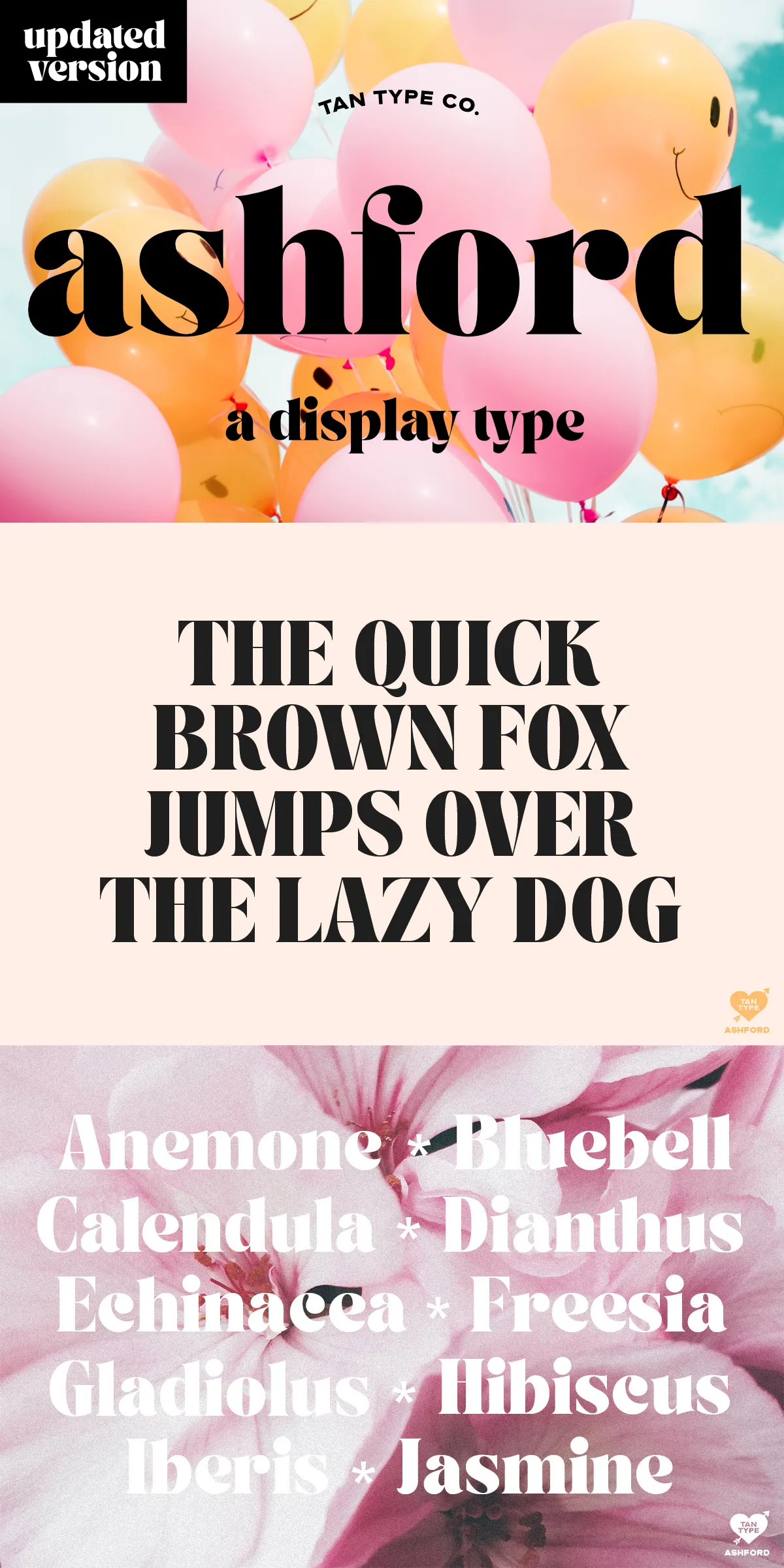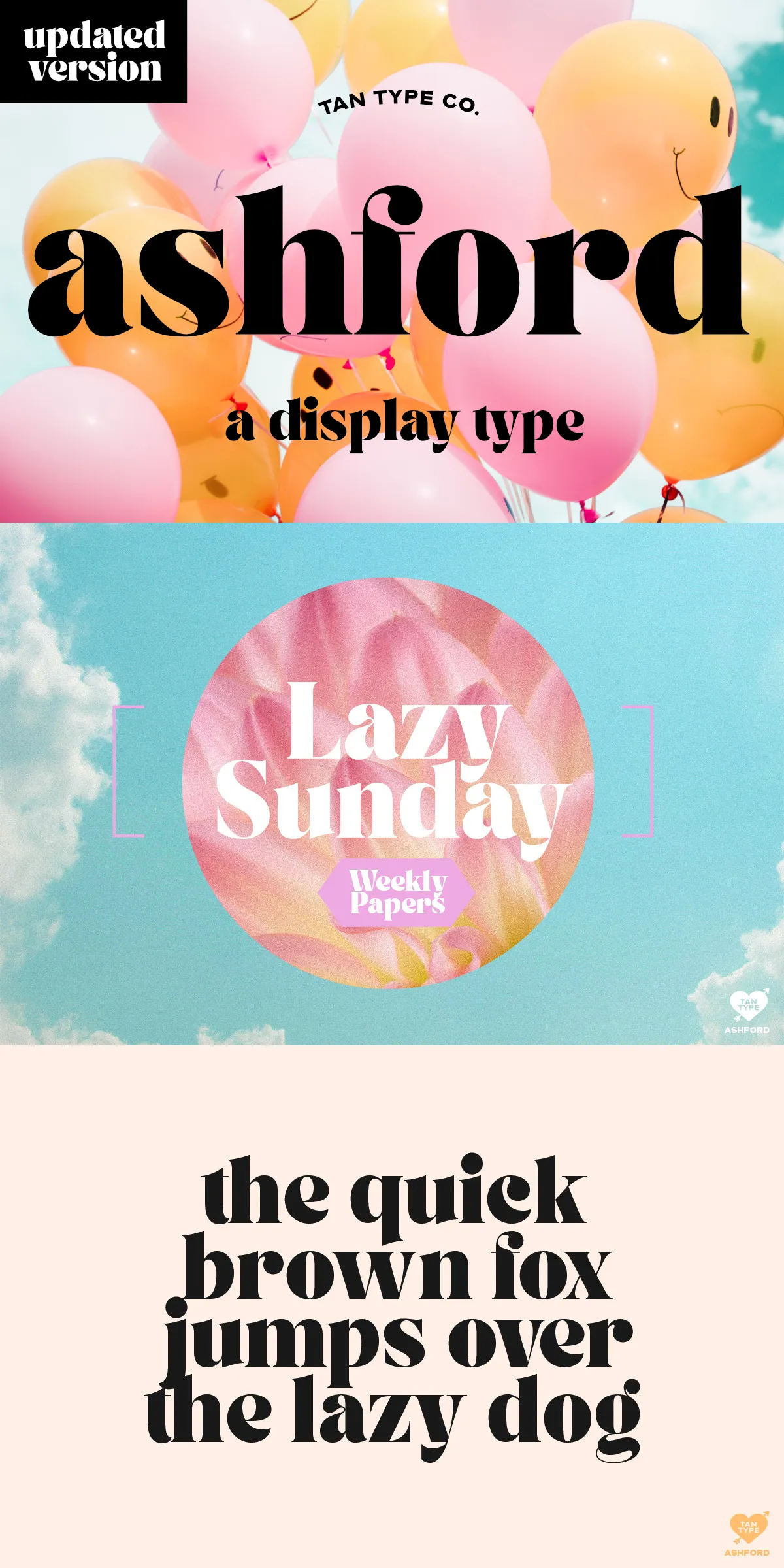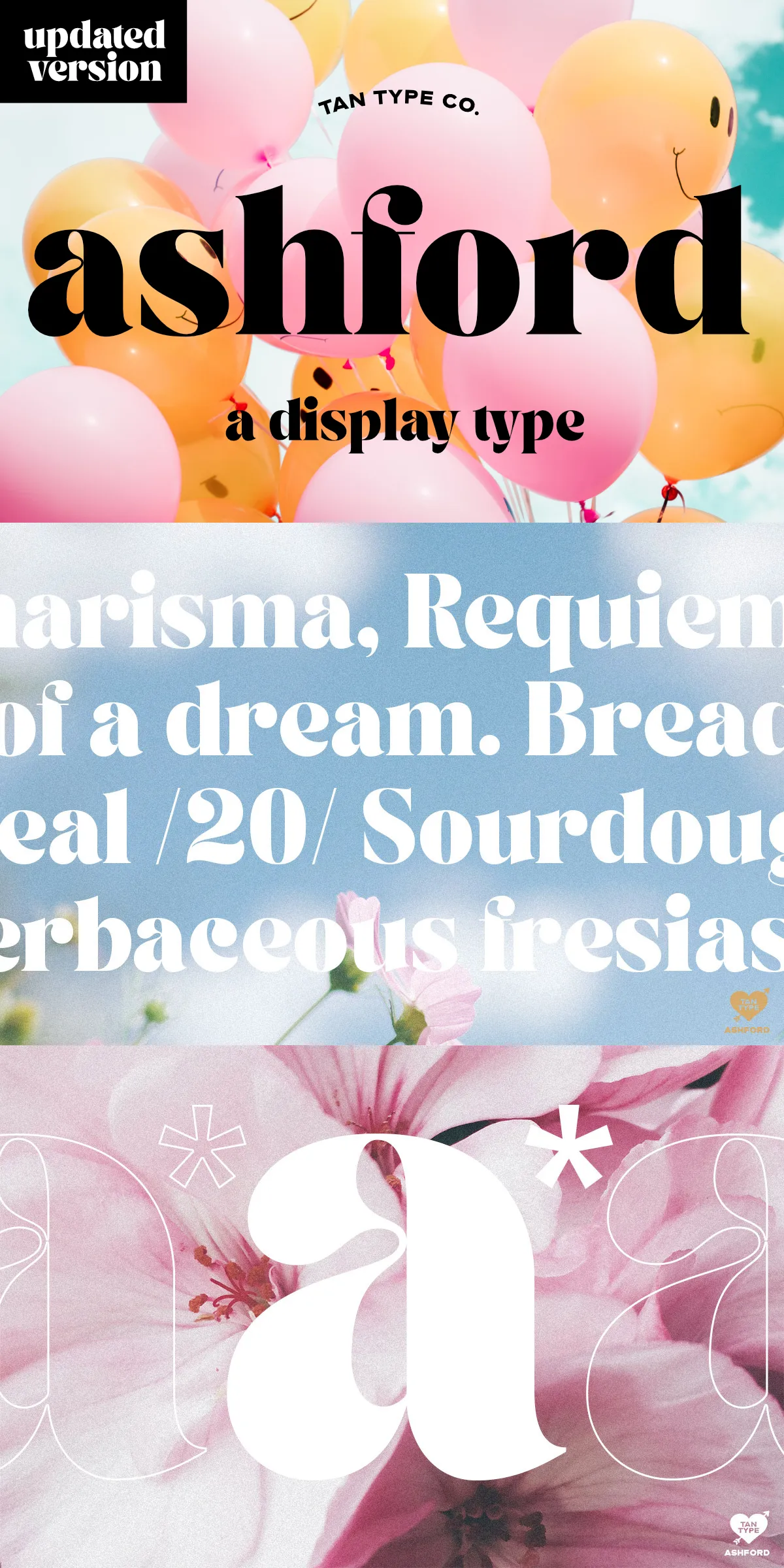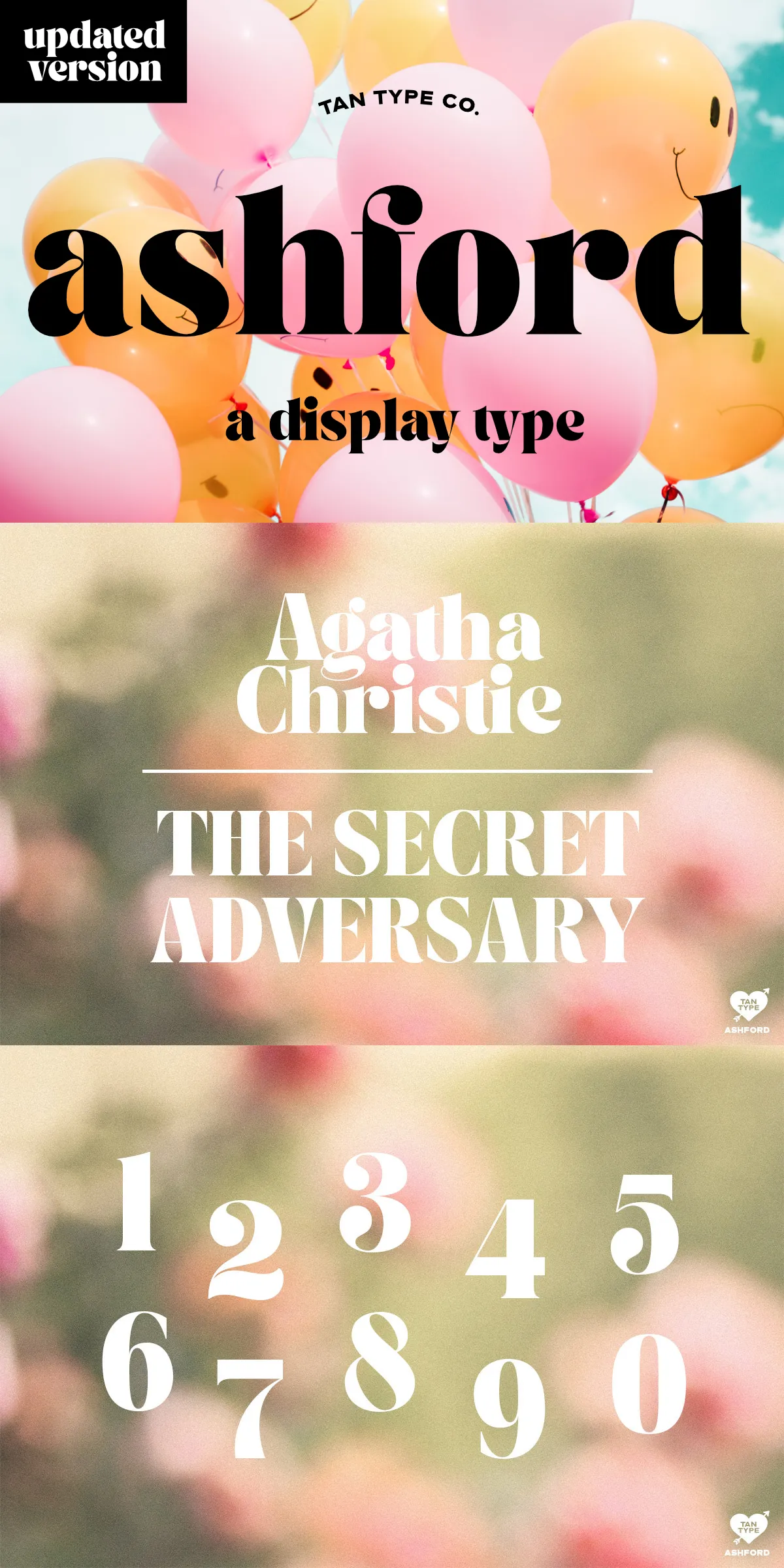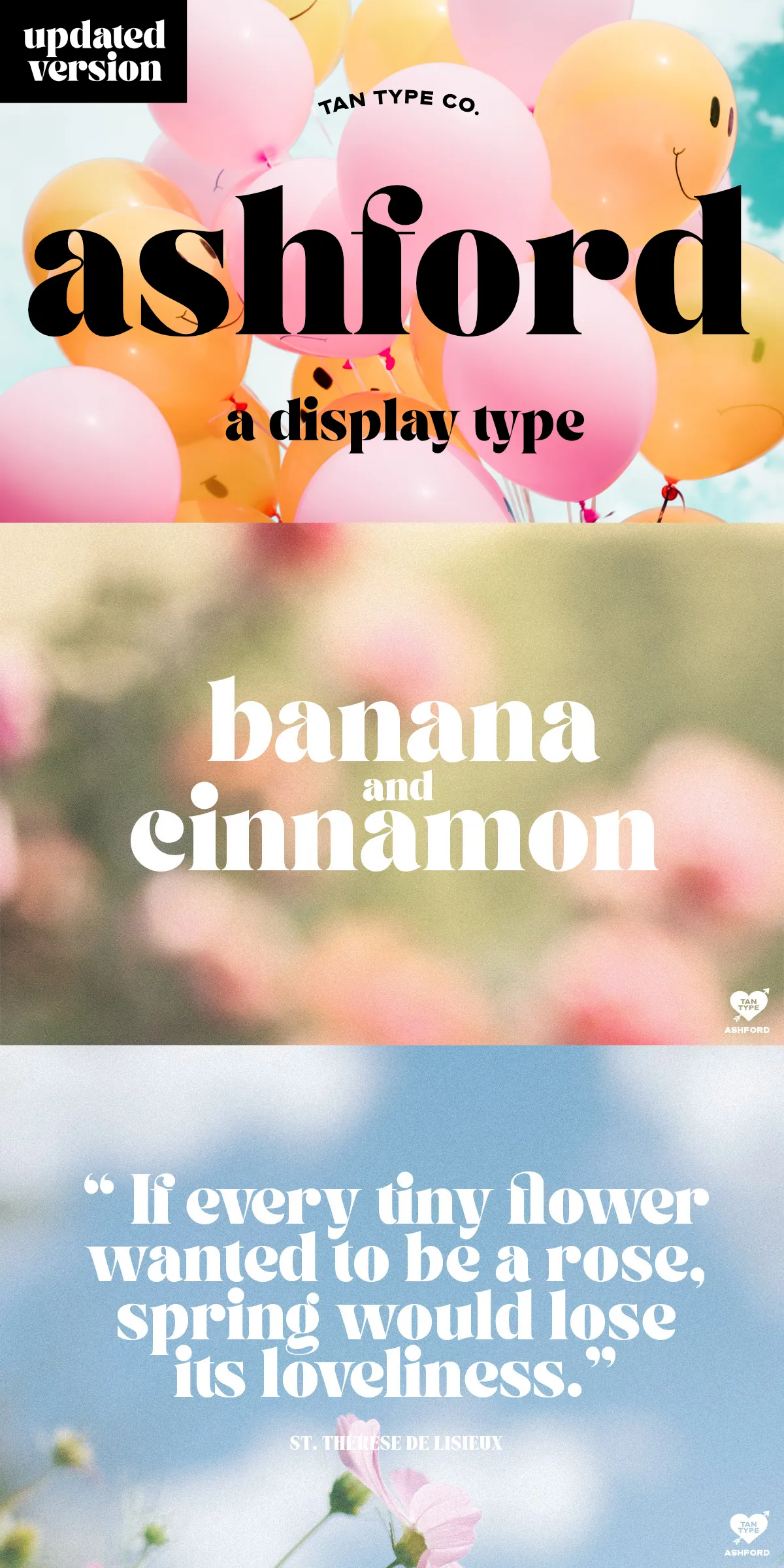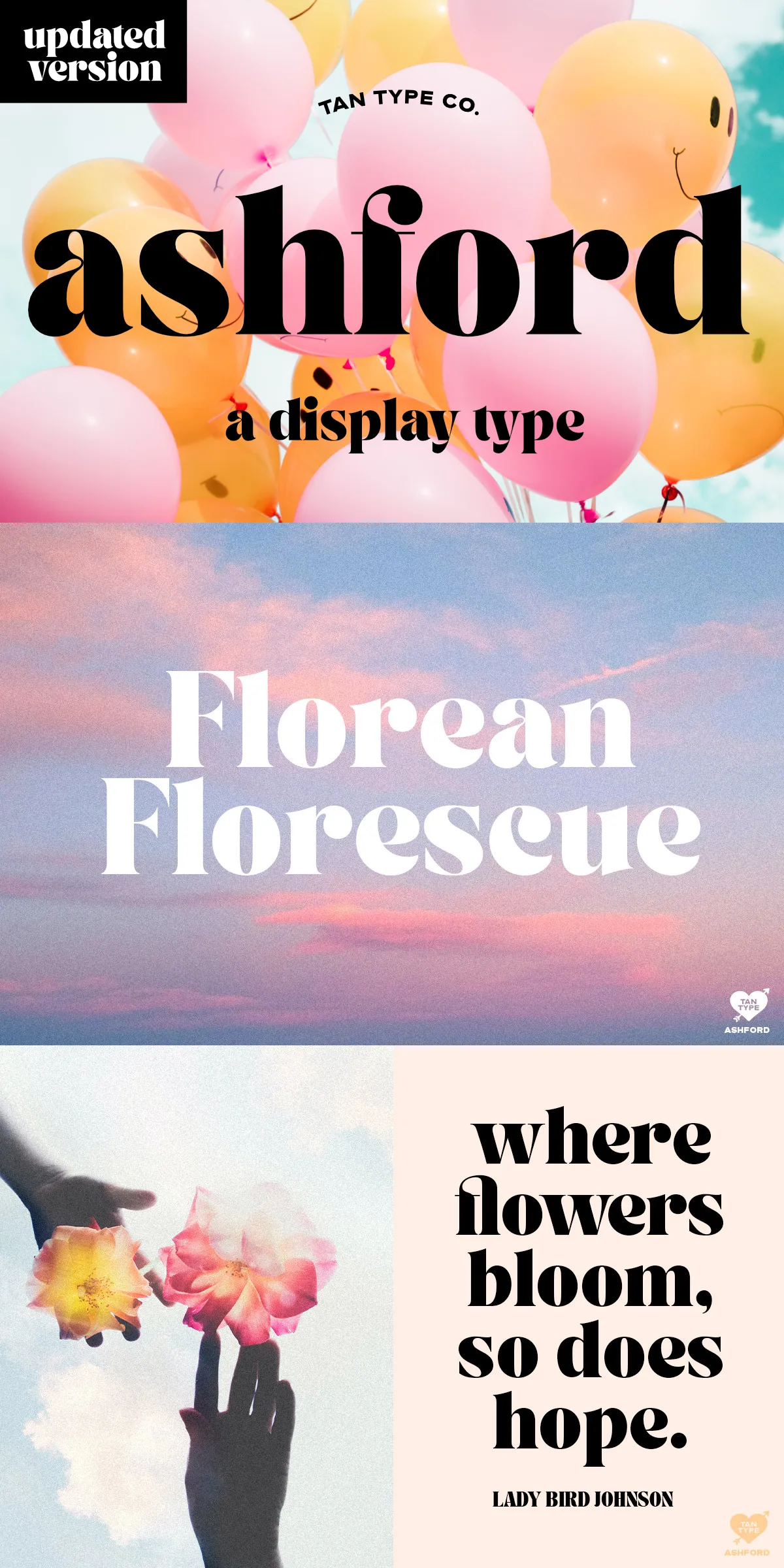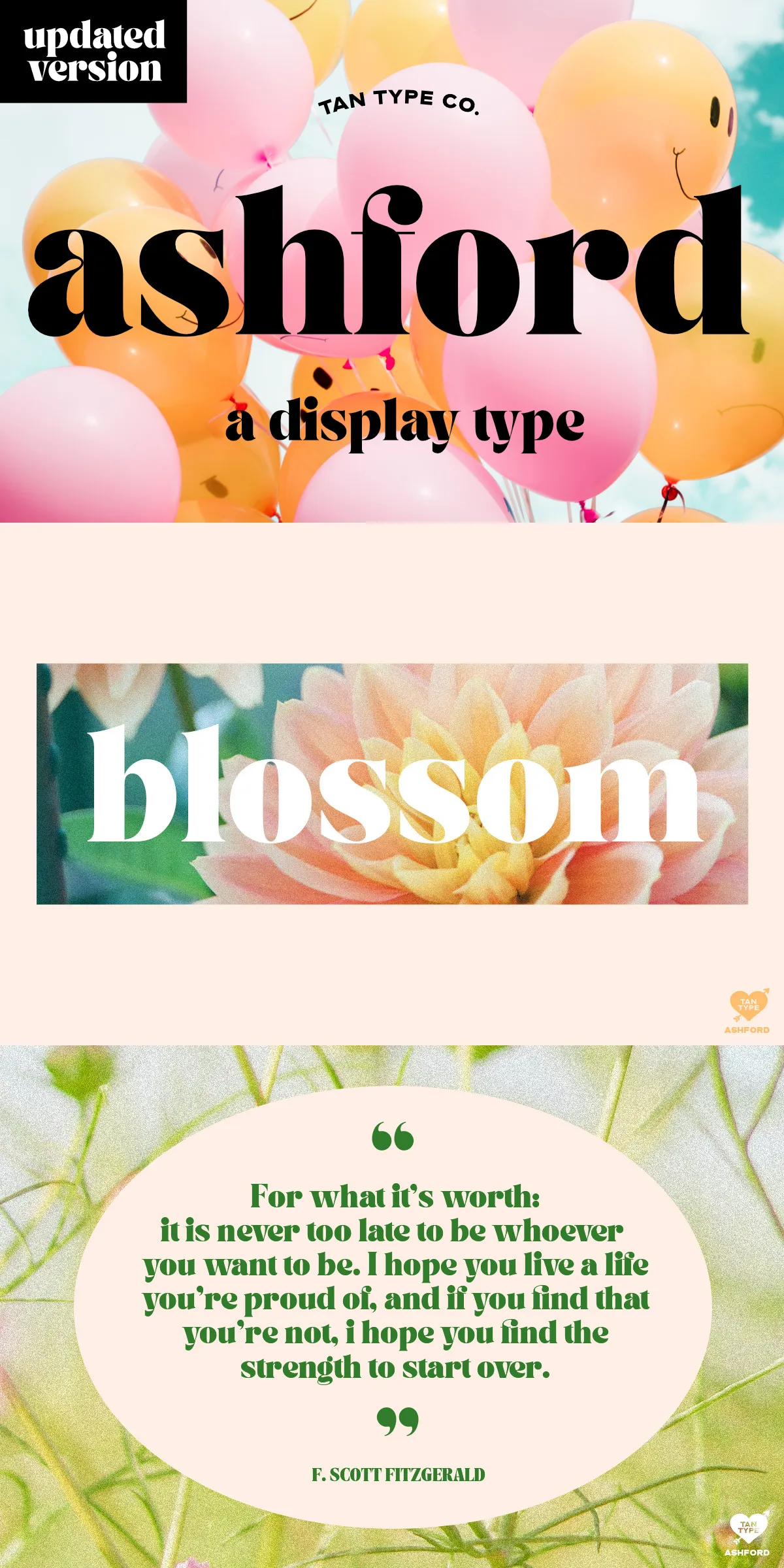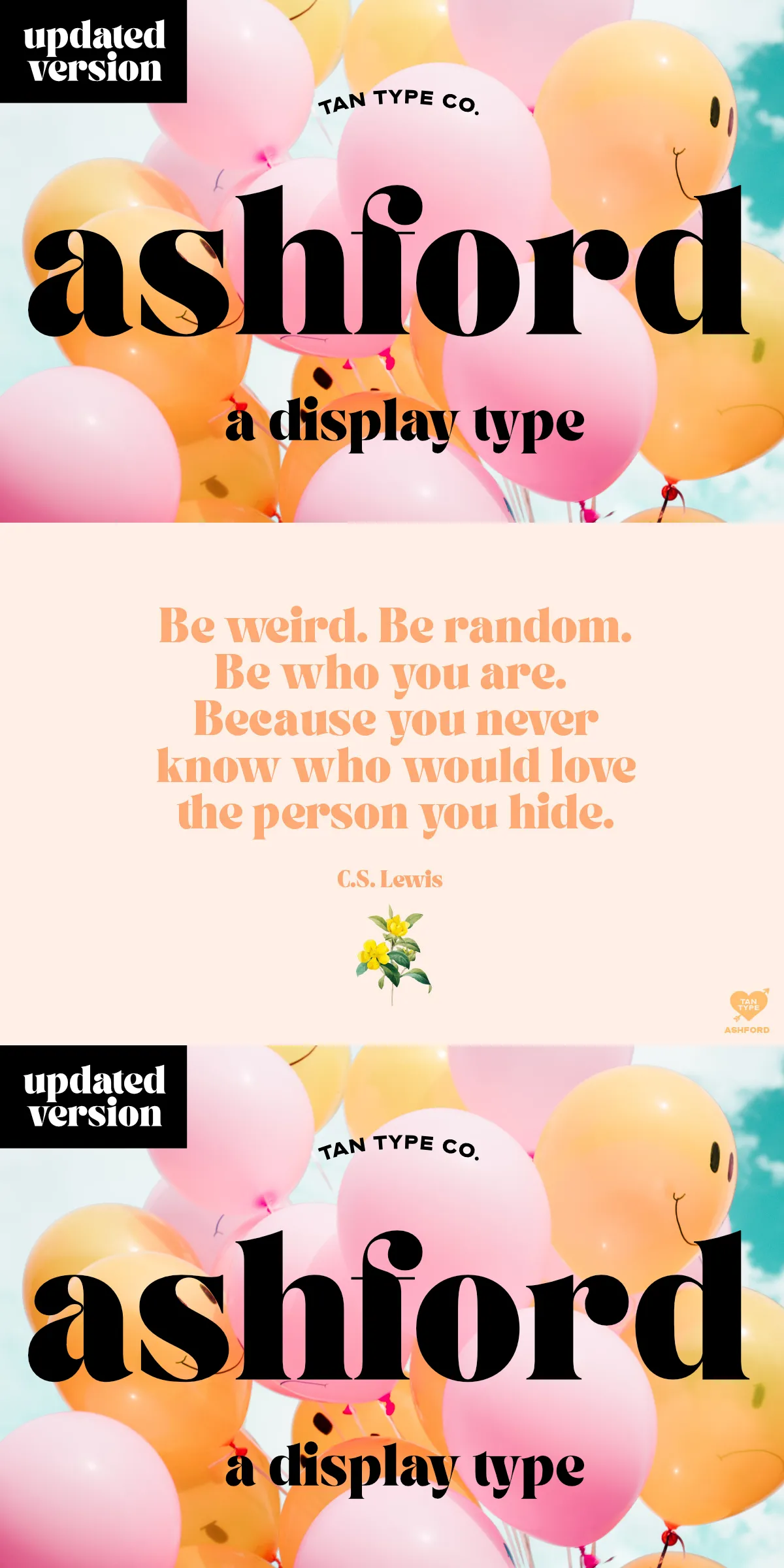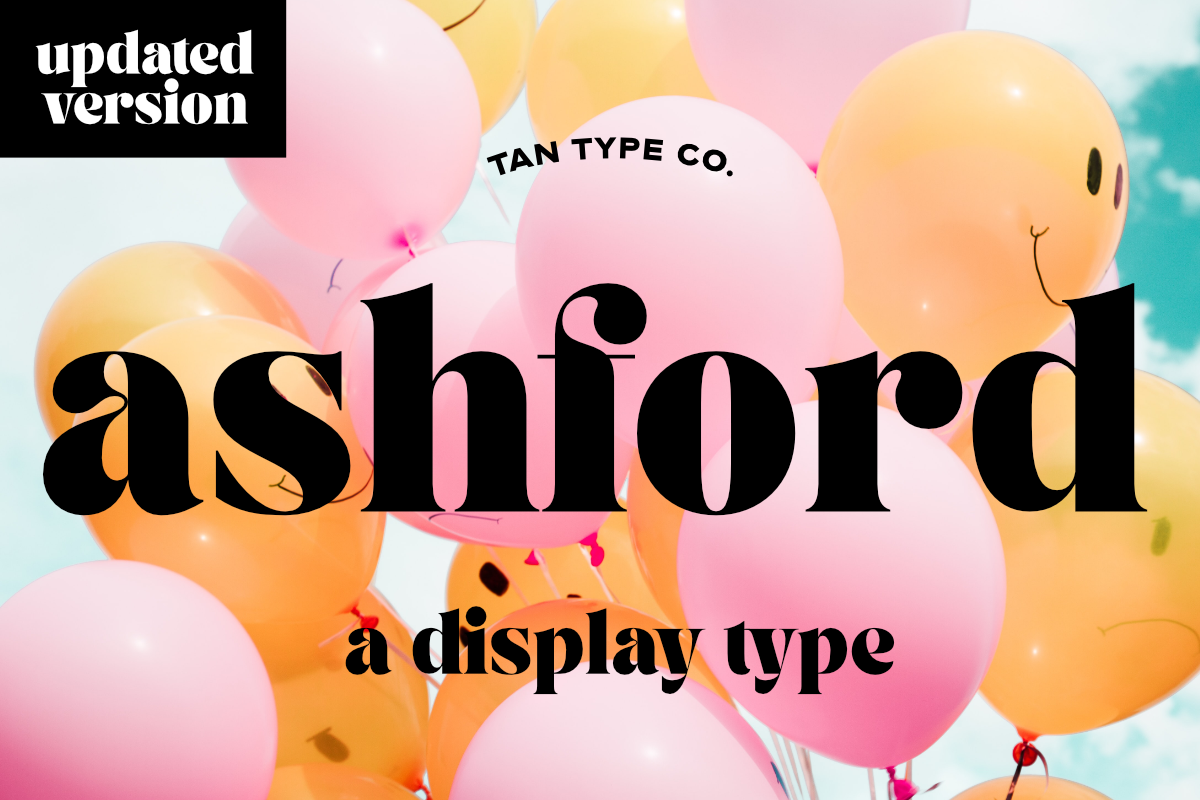
Command attention with TAN – ASHFORD, a bold serif font engineered to deliver high-impact visual presence. Designed with sharp, dramatic contrast between thick and thin strokes, this typeface exudes sophistication and strength. Whether you’re crafting a headline for a luxury campaign, designing an invitation for a high-profile event, or creating eye-catching advertising, TAN – ASHFORD cuts through the noise with unmatched clarity and style.
A Font Built for Impact and Timeless Appeal
Born from a passion for classic typography with a modern edge, TAN – ASHFORD blends the refined structure of vintage serif designs with a contemporary boldness. Its high-contrast strokes create dynamic visual rhythm — each letter feels deliberate, powerful, and poised. The slight vintage flair adds authenticity and warmth, allowing your text to feel both nostalgic and fresh, never outdated.
This is not a font for subtle whispers. It’s made for powerful declarations. It thrives in scenarios where attention is limited and impact is crucial. Use it to define brand identity, frame digital banners, or anchor editorial layouts with instant gravitas.
Extensive Multilingual Support for Global Creators
TAN – ASHFORD is more than a visual statement — it’s a functional powerhouse built for international use. Fully multilingual support ensures your message reaches every audience without compromise. It includes full coverage for:
- Latin-based languages (French, German, Spanish, Italian, Portuguese, Dutch, Swedish, Polish, Czech, and more)
- Extended diacritics and special characters (À à Á á  â Ä ä Æ æ à ã Å å Ā ā Ă ă Ą ą Ç ç Ć ć Č č Ď ď Đ đ È è É é Ê ê Ë ë Ē ē Ė ė Ę ę Ě ě Ğ ğ Ģ ģ Î î Ï ï Í í Ī ī Į į Ì ì İ Ķ ķ Ĺ ĺ Ľ ľ Ļ ļ Ñ ñ Ń ñ Ň ň Ņ ņ Ô ô Ö ö Ò ò Ó ó Œ œ Ø ø Ō ō Õ õ Ő ő Ŕ ŕ Ř ř Ŗ ŗ Ś ś Š š Ş ş Ș ș ß Ť ť Ț ț Û û Ü ü Ù ù Ú ú Ū ū Ű ű Ų ų Ů ů Ÿ ÿ Ý ý Ž ž Ź ź Ż ż 0 1 2 3 4 5 6 7 8 9)
- Standard punctuation, symbols, and ligatures for professional-grade typography
No need to worry about missing characters or broken text. TAN – ASHFORD handles complex scripts with precision, ensuring your design looks flawless across languages and platforms.
Perfect for High-Performance Creative Projects
- Branding & Logo Design – Project confidence and premium quality with a distinctive serif that stands out.
- Event Invitations & Stationery – Make your invitations unforgettable with bold, elegant typography.
- Advertising & Print Campaigns – Capture readers’ attention from the first glance with high-contrast headlines.
- Merchandise & Packaging – Add bold, memorable lettering to t-shirts, mugs, boxes, and labels.
Elevate Your Work with TAN – ASHFORD — Future-Ready, Forever Stylish
Don’t just use a font — make a statement. TAN – ASHFORD is crafted not only to look powerful but to perform under pressure, across devices, and across borders. Its boldness doesn’t compromise legibility; it enhances it.